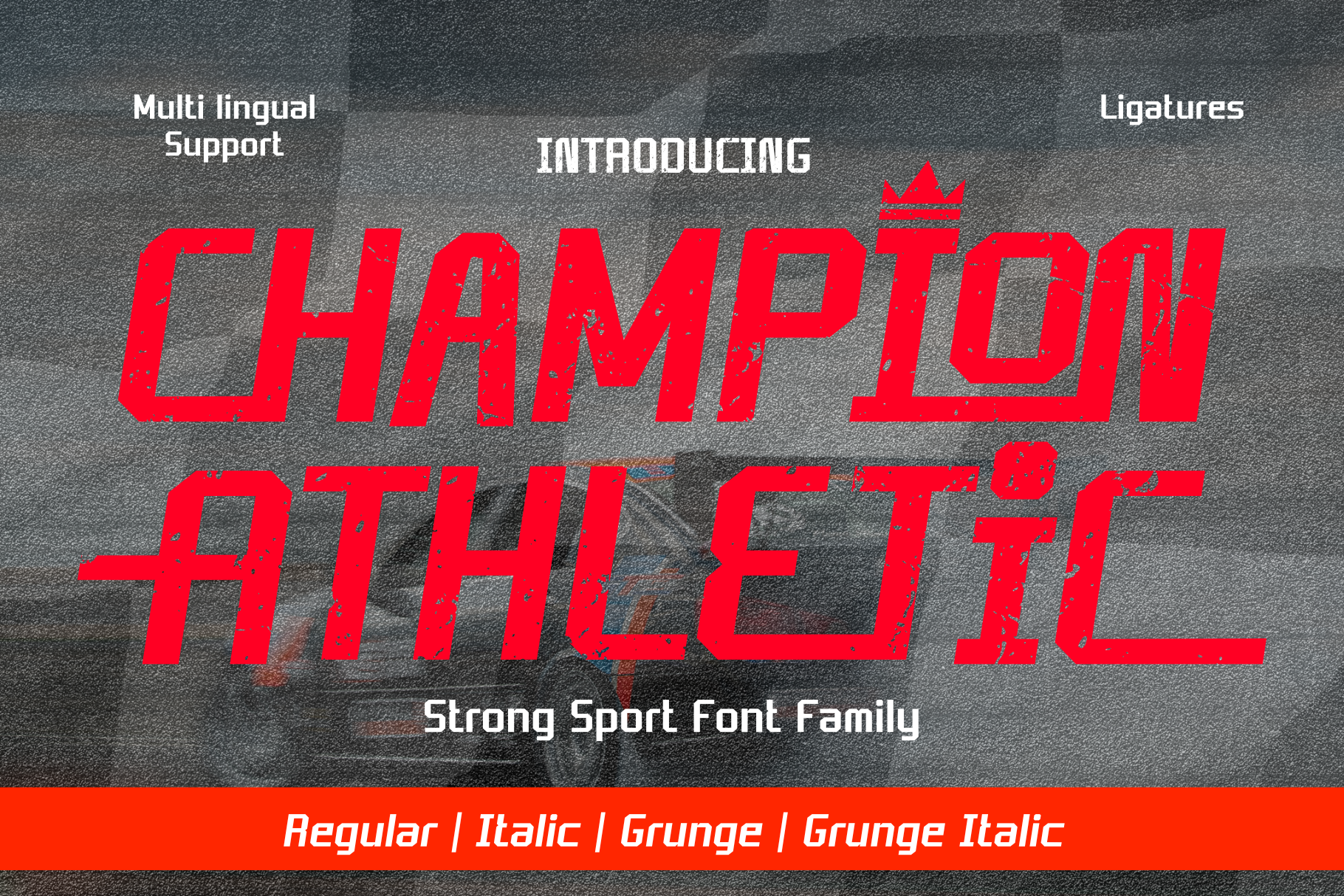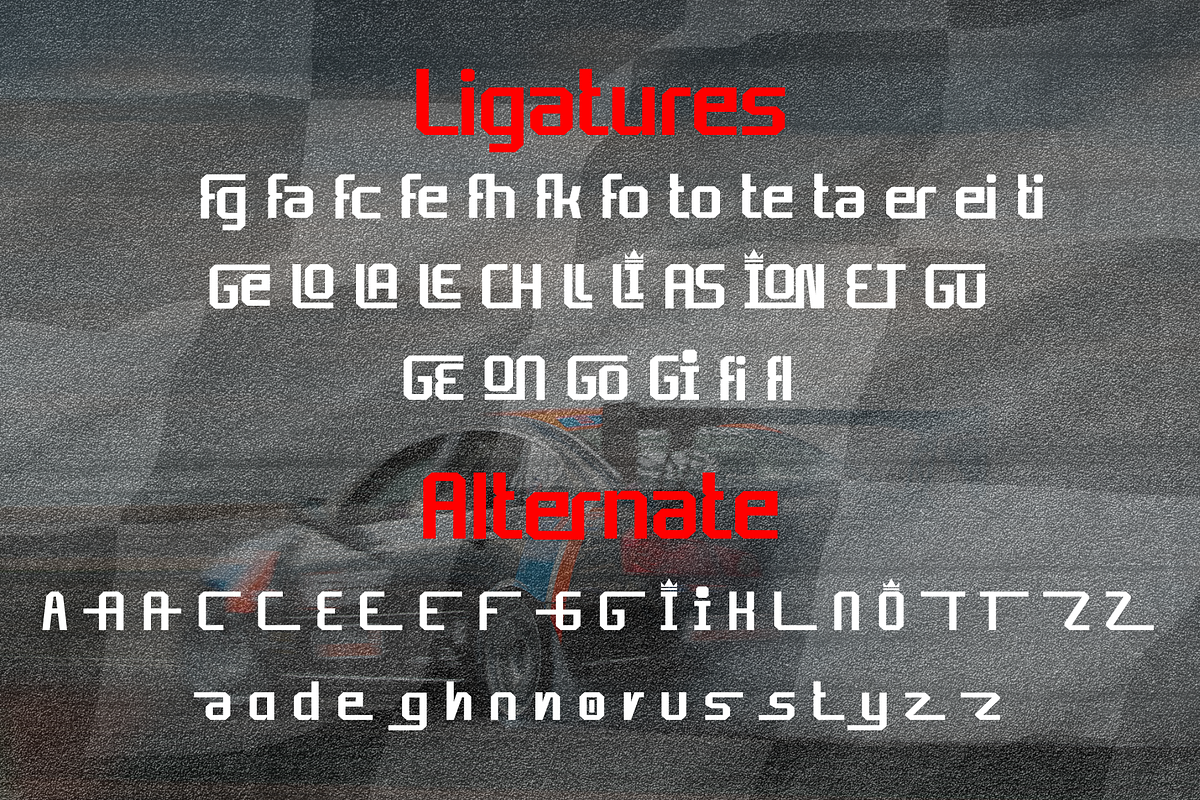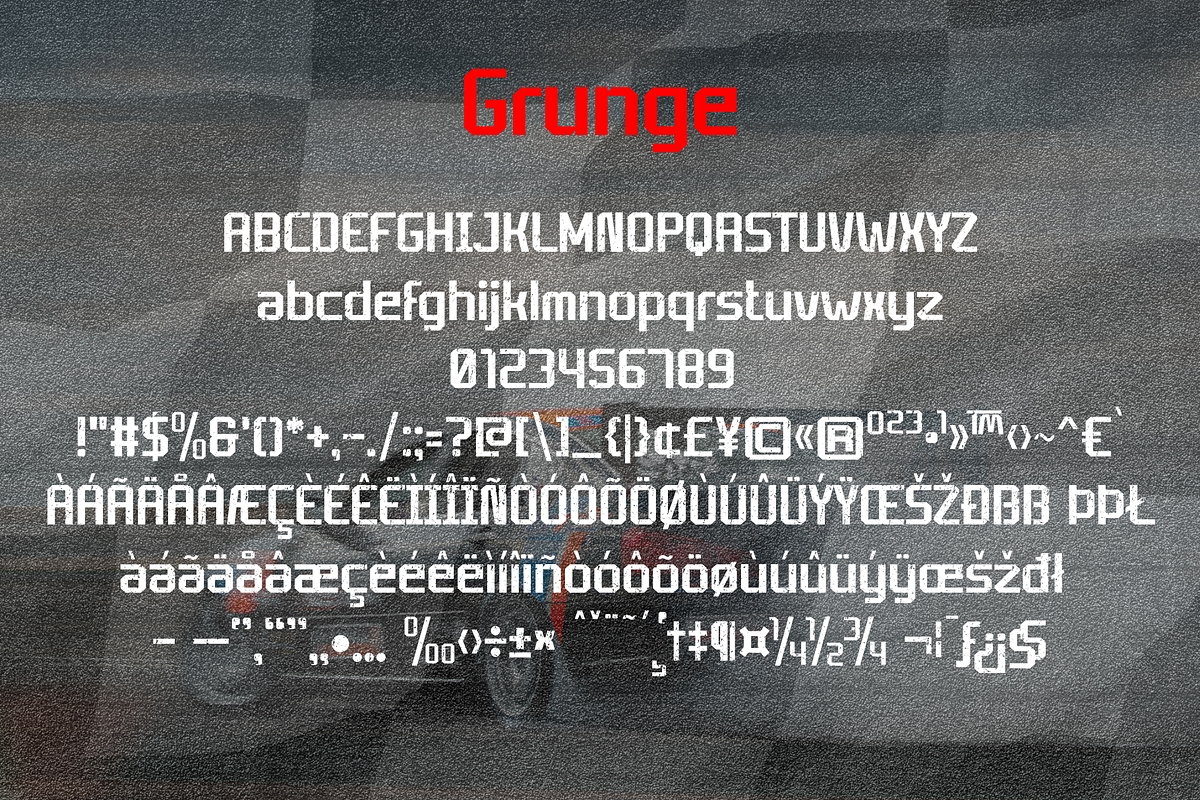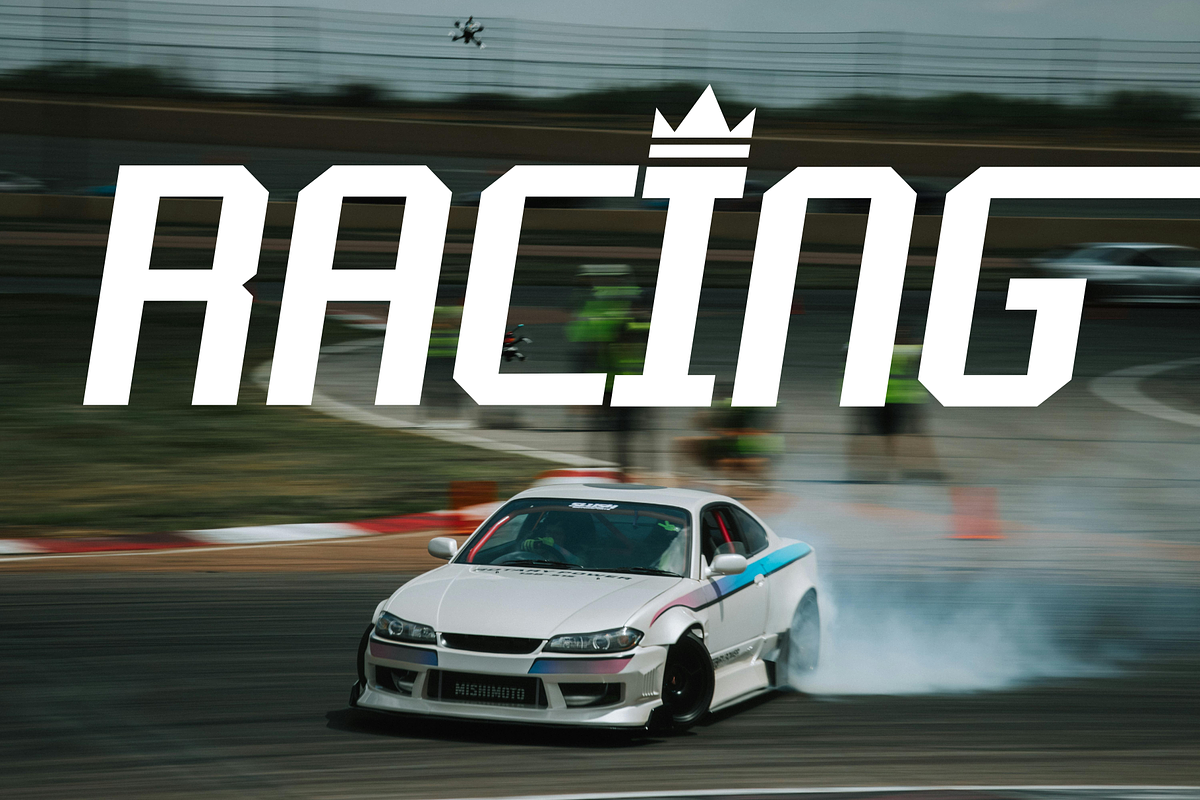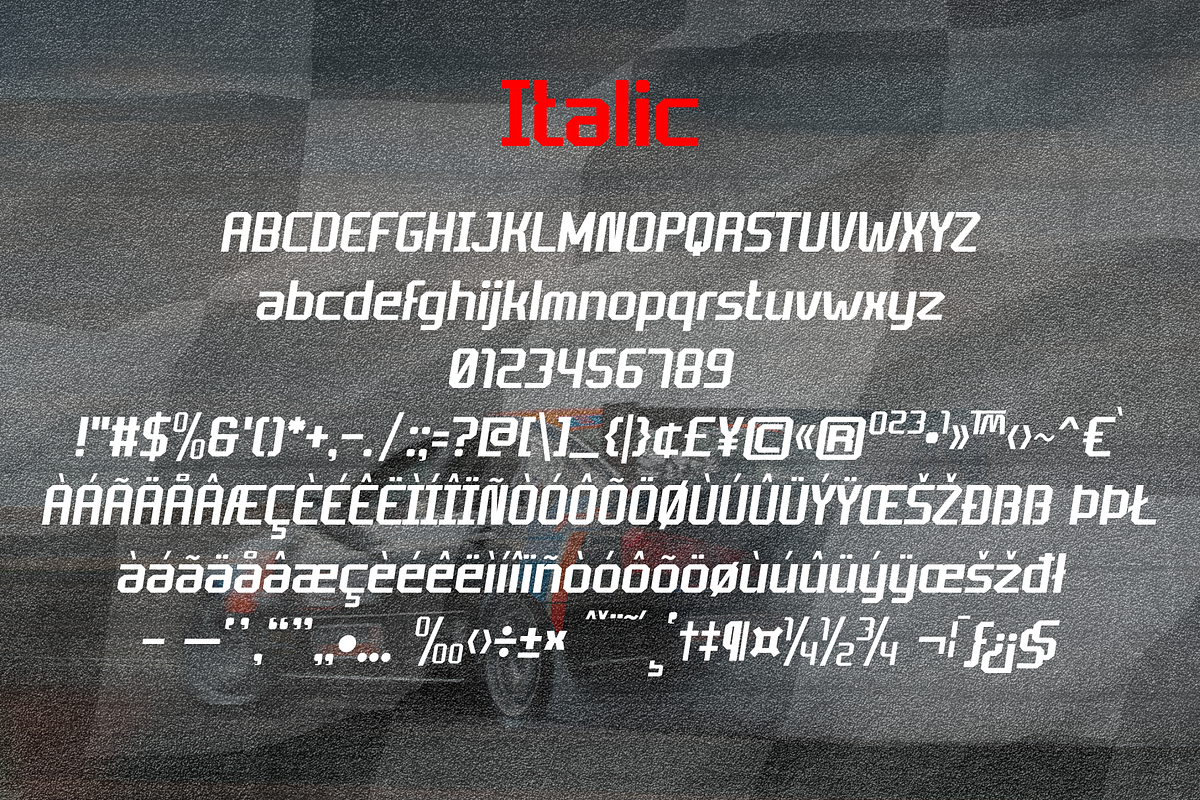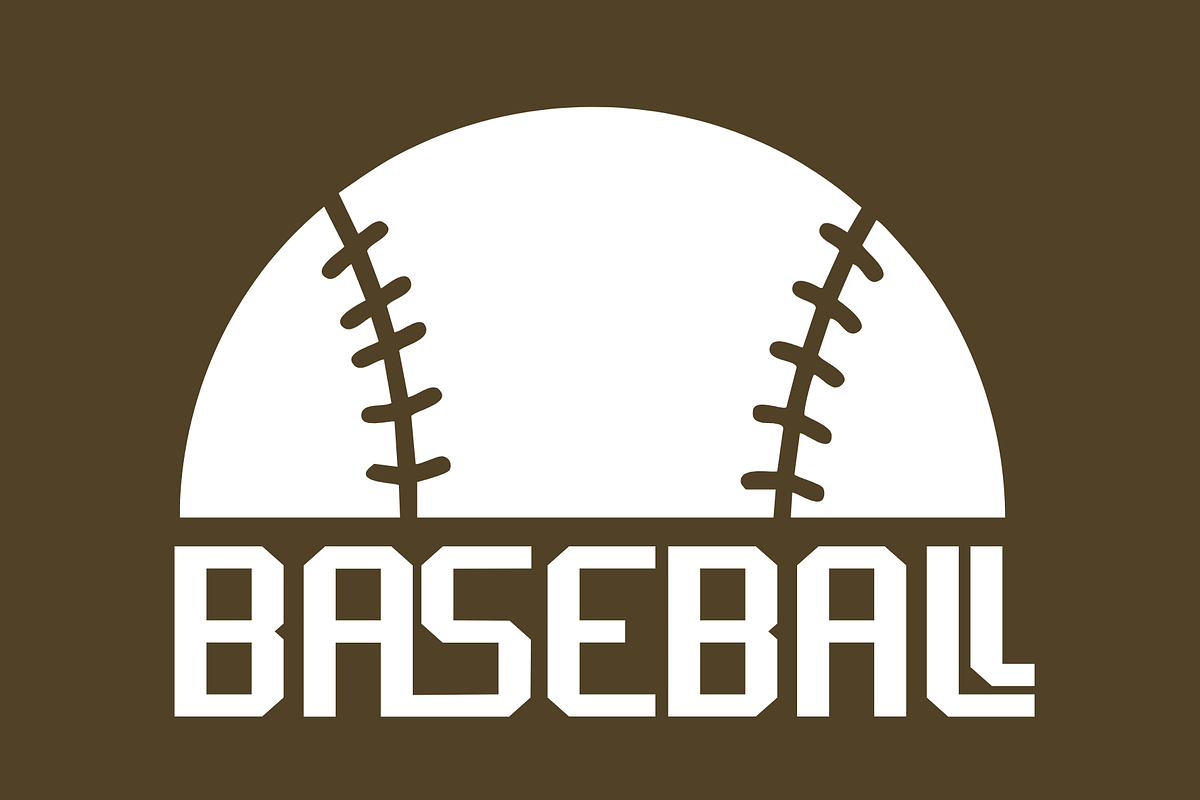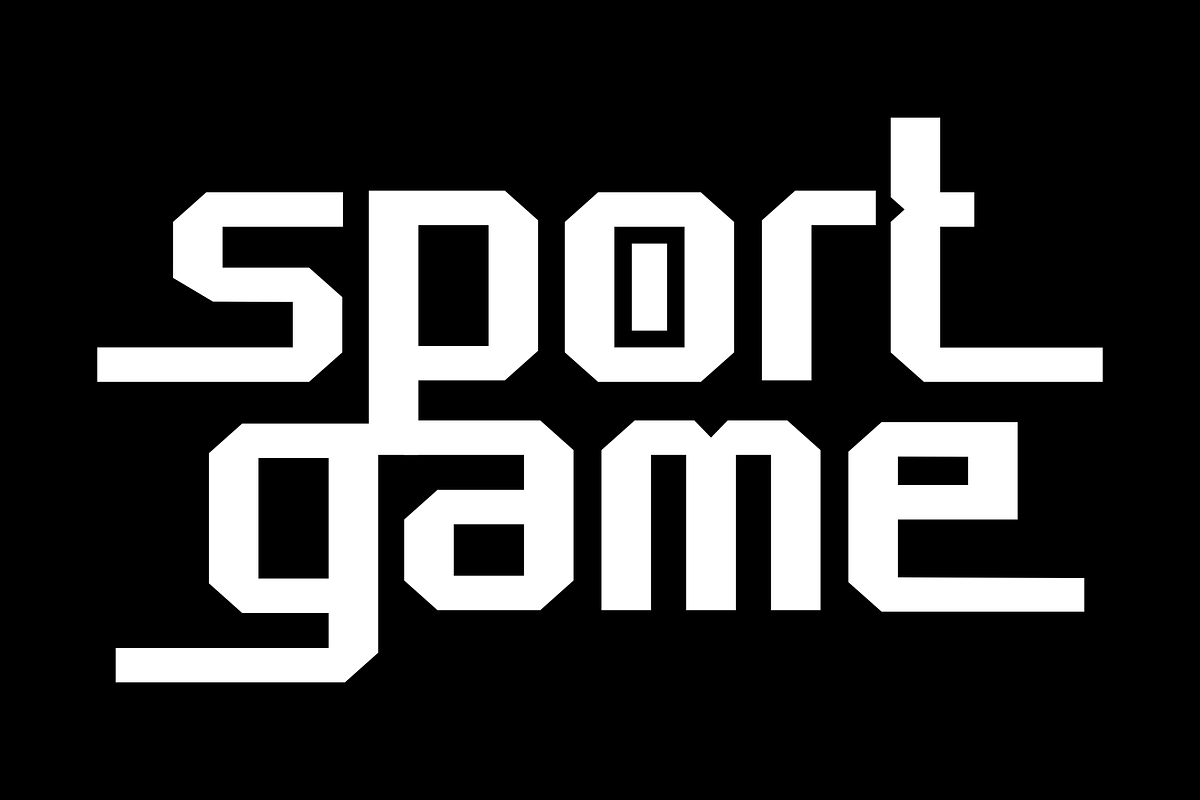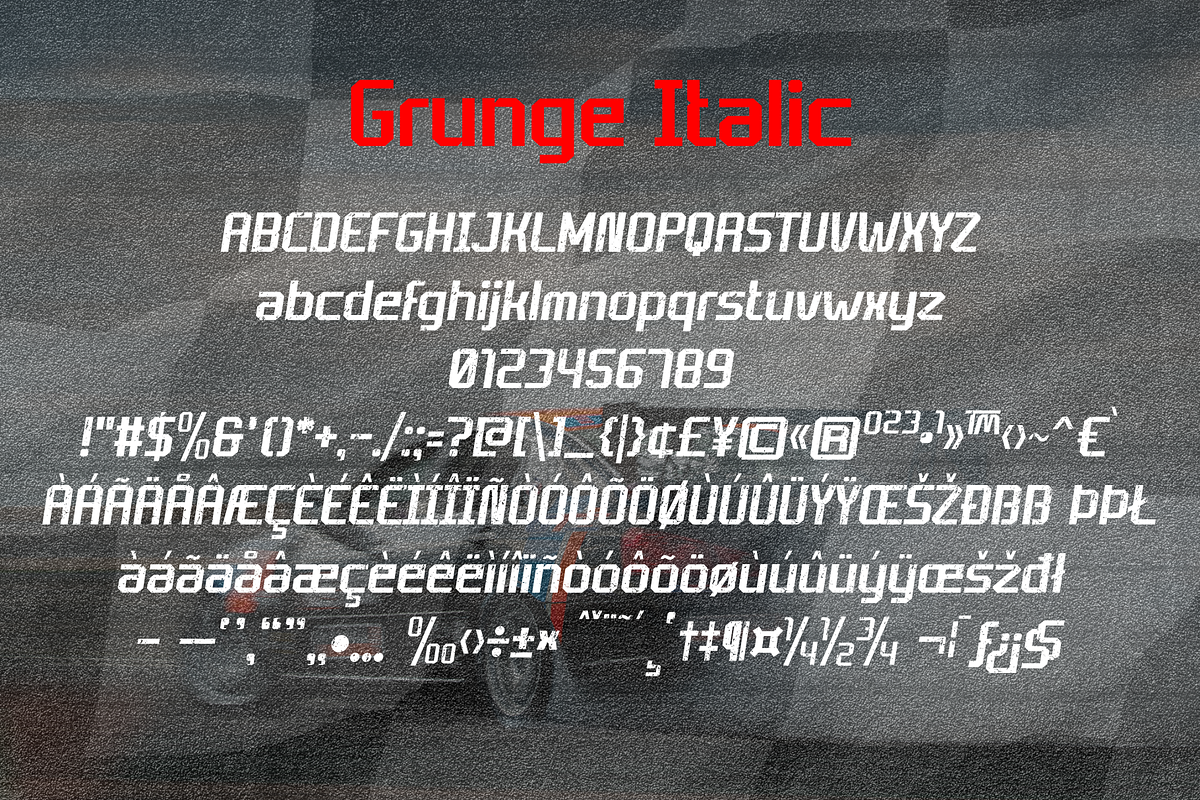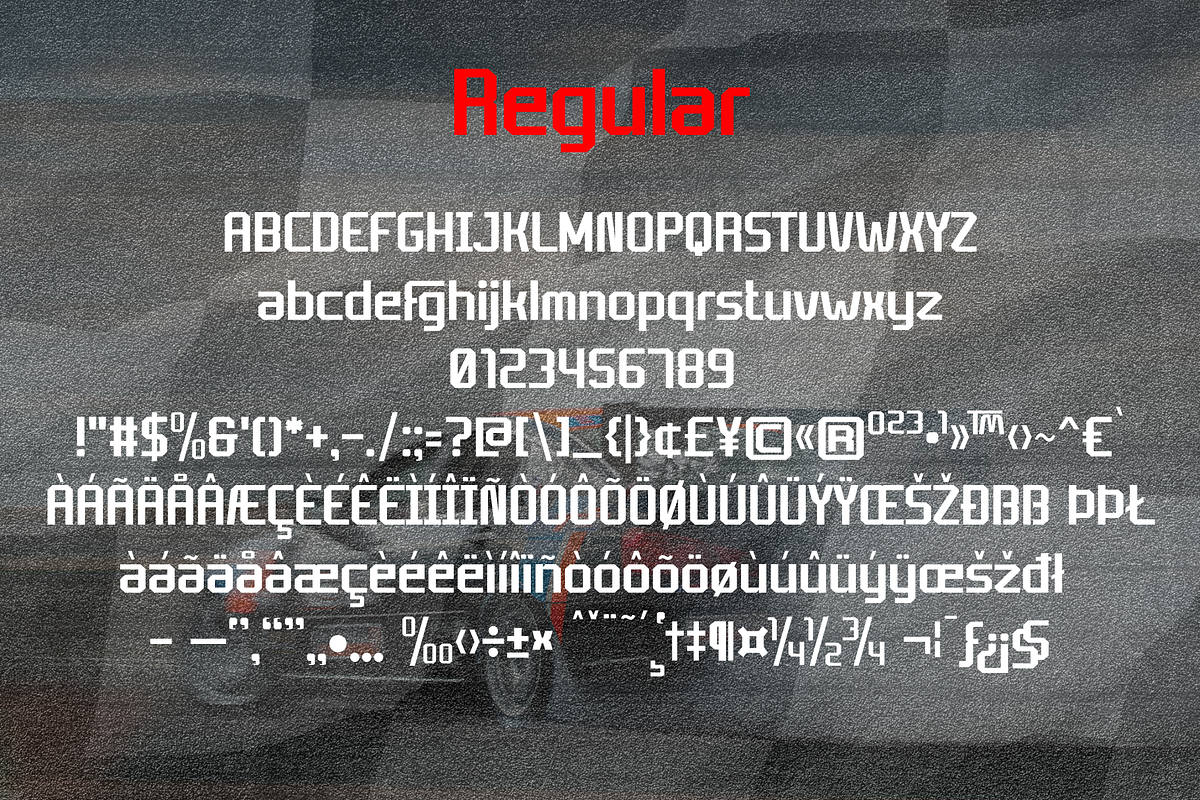
Champion Athletic - Sport Font
Champion Athletic – the athletic typeface that has been conceived from the spirited aesthetics of America’s favorite pastime. With a solid infusion of retro-chic, Champion Athletic delivers a vivacious persona that’s ideal for team jerseys, sports-themed logos, event publicity, and products craving a bold, self-assured aura. Capturing the essence of dynamic gameplay, this font instills a perception of energy and robust flair to your designs. Dive into the world of sports and vintage aesthetics with Champion Athletic typeface.